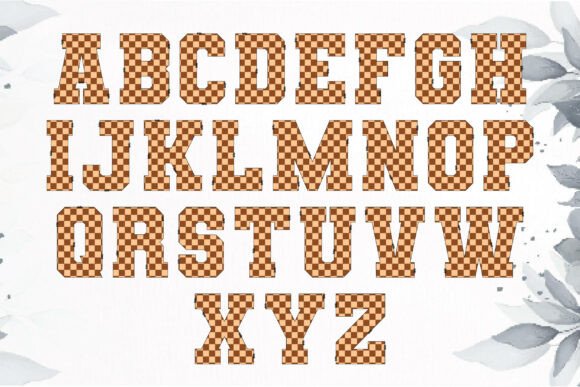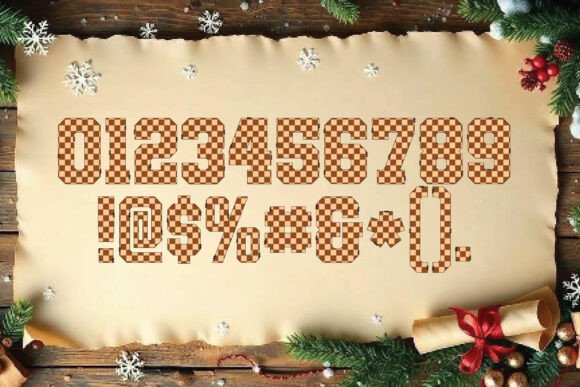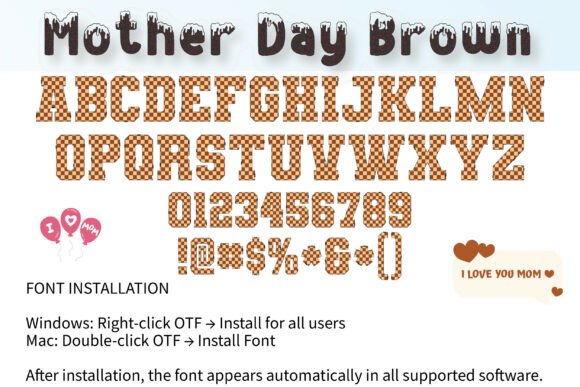
Introduction to Mother Day Brown Font
Mother Day Brown Cute Mom Alphabet Create warm and stylish designs with this beautiful Mother Day Brown Font.
Designed with a soft and elegant brown theme, this alphabet is perfect for making eye-catching Mother’s Day and family celebration creations Ideal for t-shirts, mugs, stickers, planners, scrapbooking, sublimation projects, greeting cards, and social media graphics.
Key Features of Mother Day Brown Font
Why Choose Mother Day Brown Font?
Mother Day Brown Font offers exceptional quality and versatility, making it a valuable addition to your design toolkit. Whether you’re creating for personal projects or commercial use, Mother Day Brown Font delivers professional results.